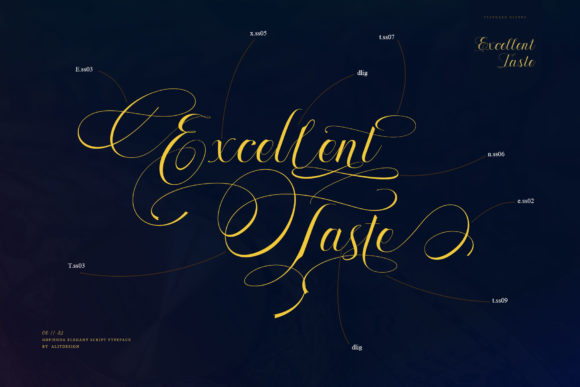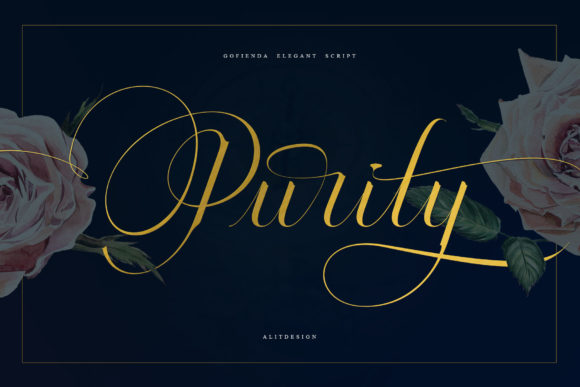
Gofienda Font
db-ku.com - Script & Handwritten -- Gofienda is a ravishing script font that exudes elegance and class. This font was particularly crafted for those who need a beautiful and refreshing look to their designs. It is PUA encoded which means you can access all glyphs and swashes with ease!